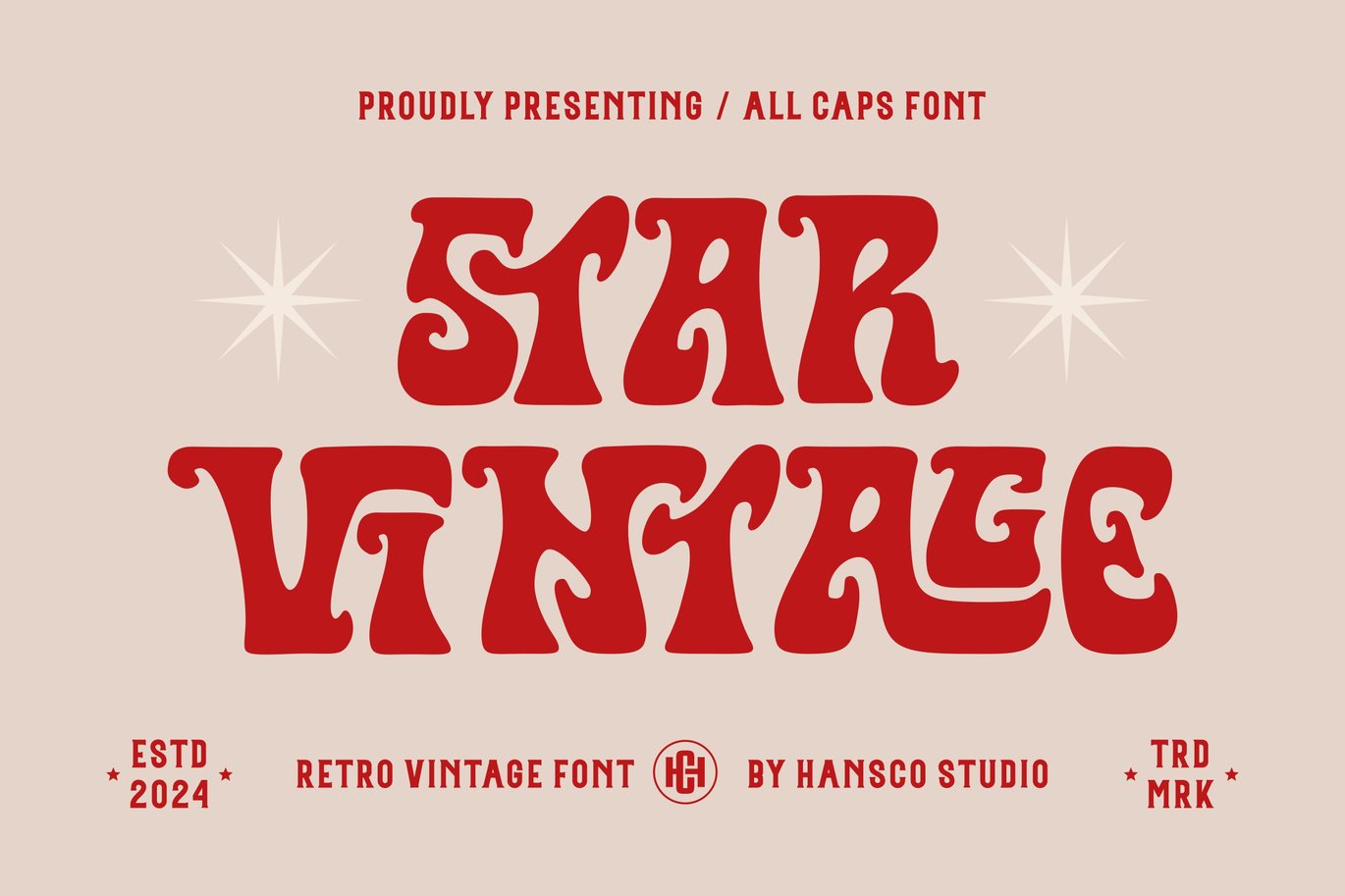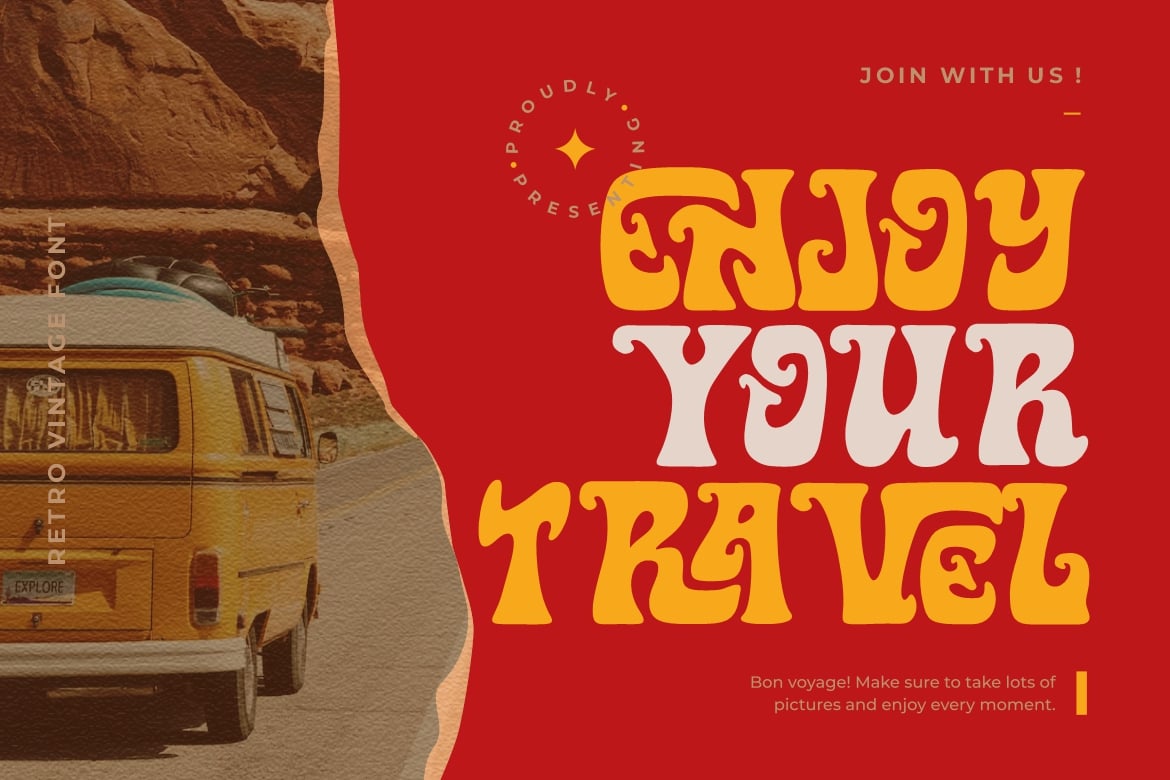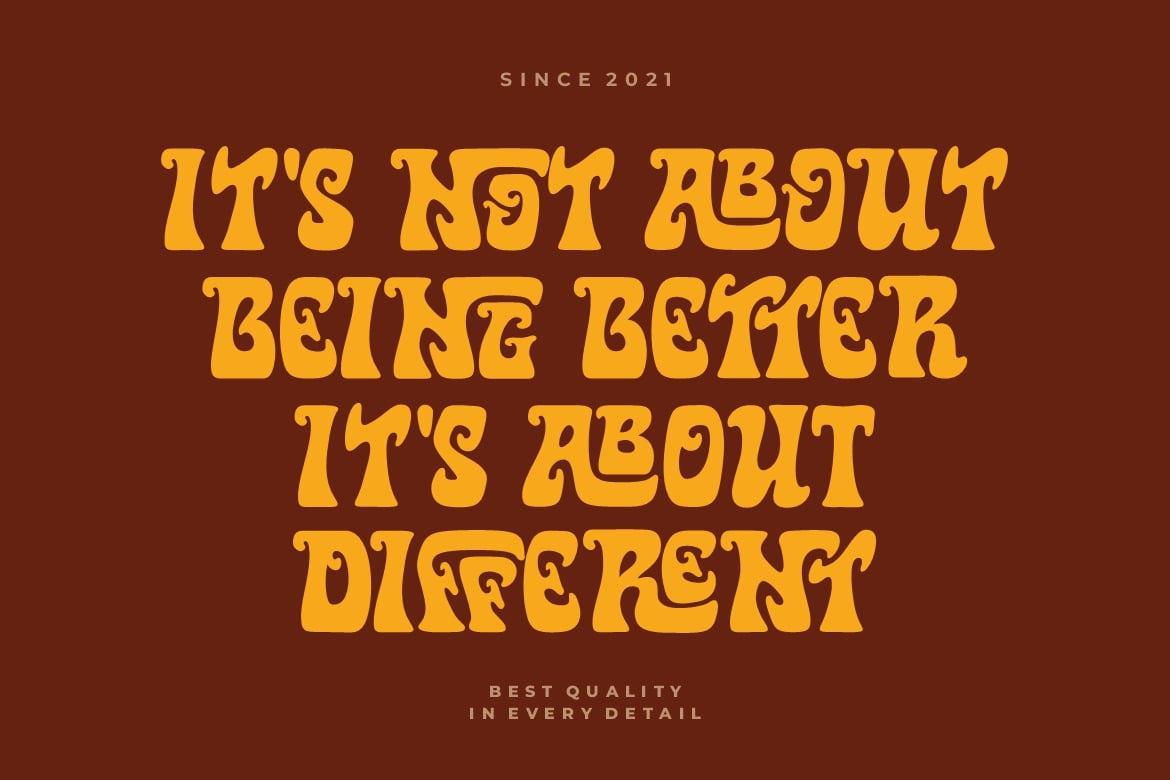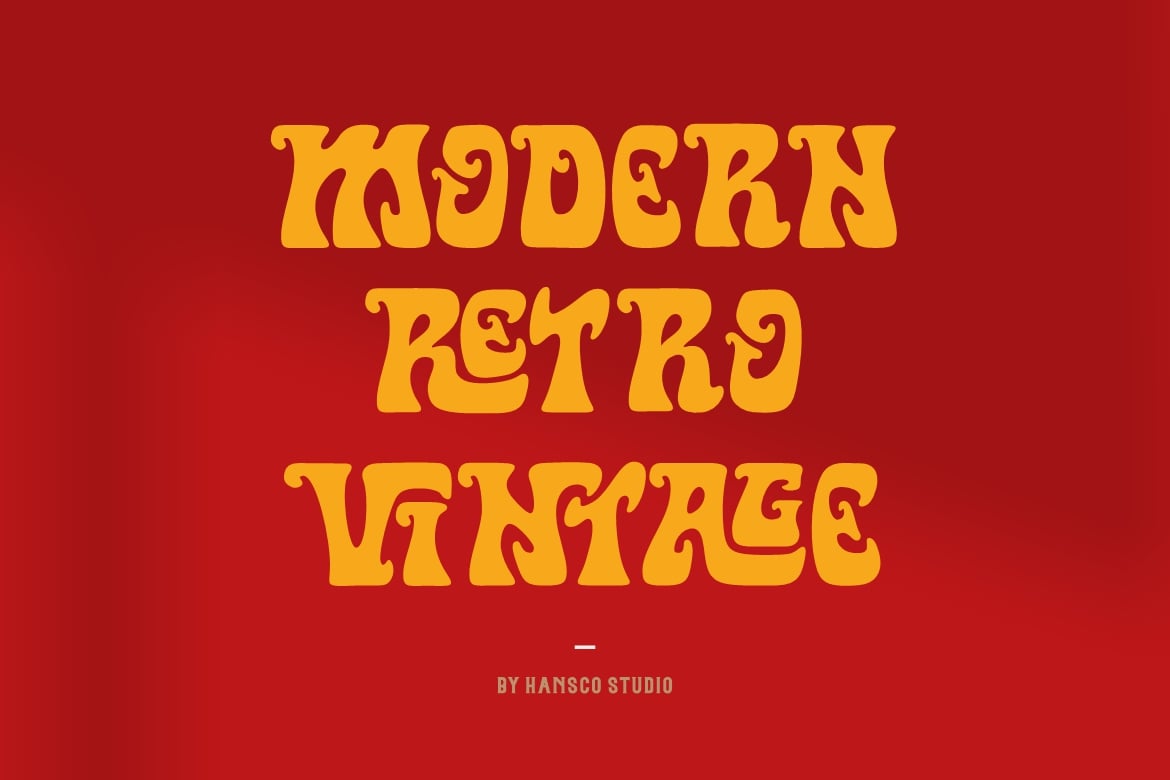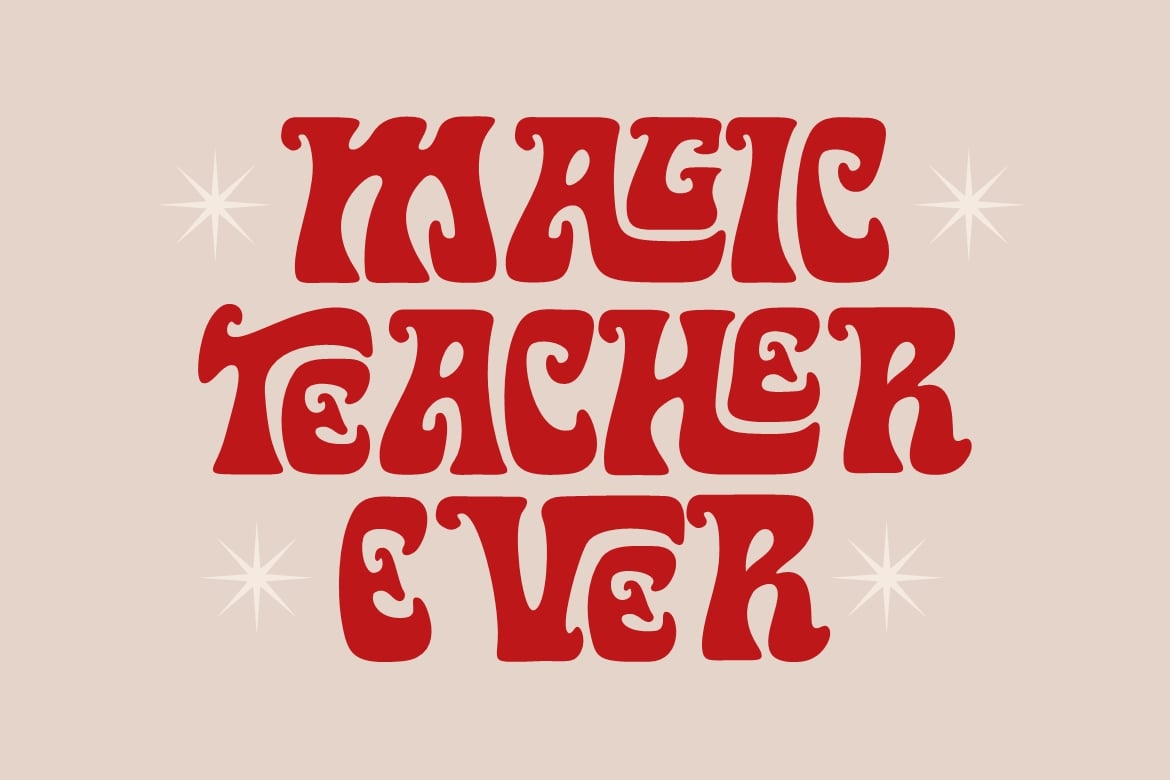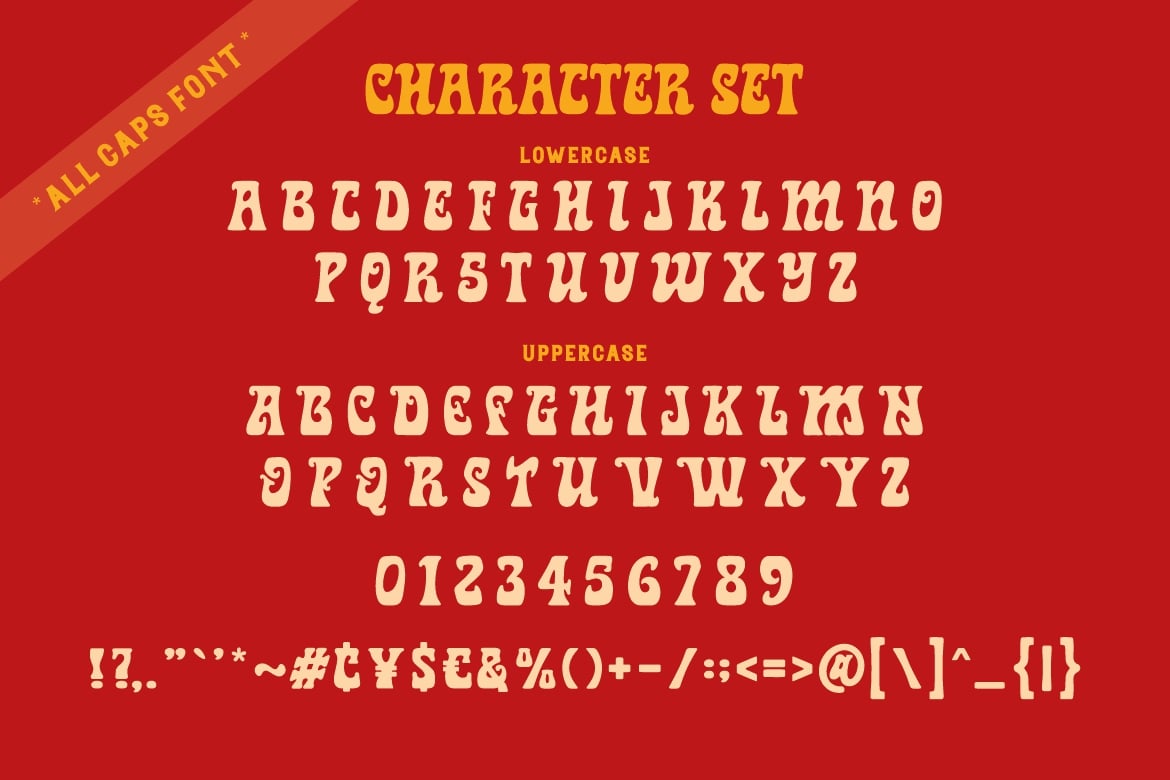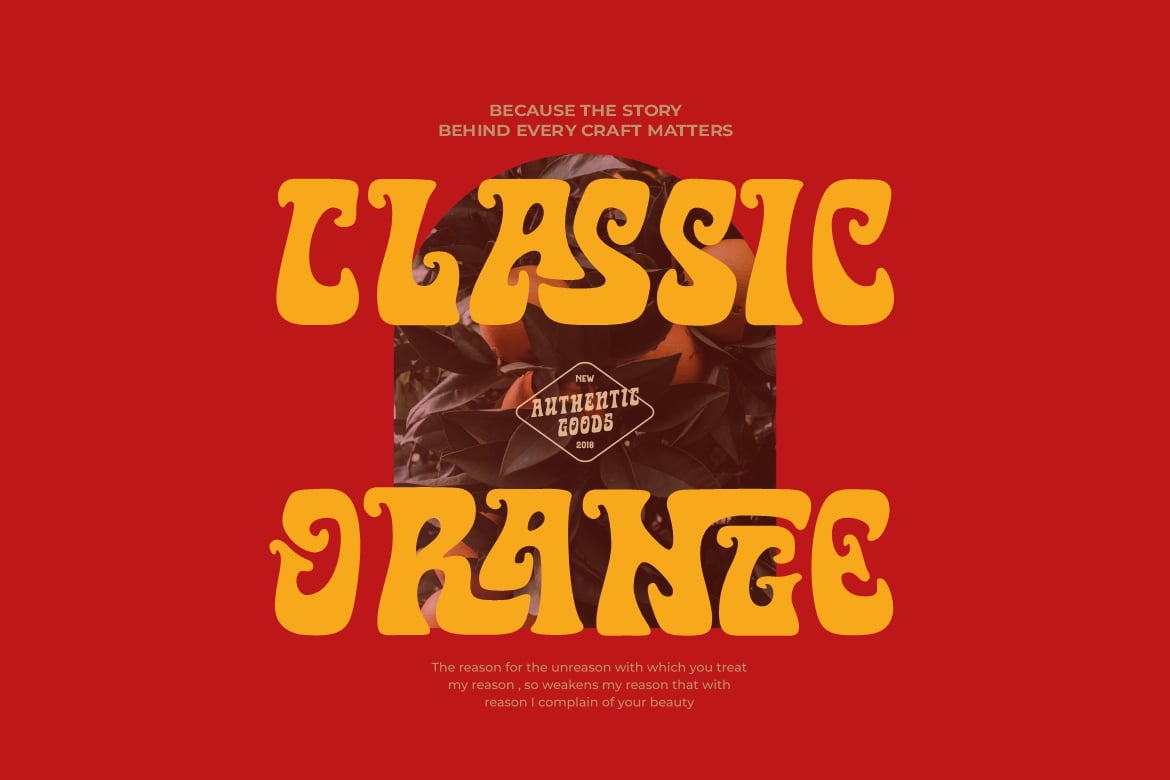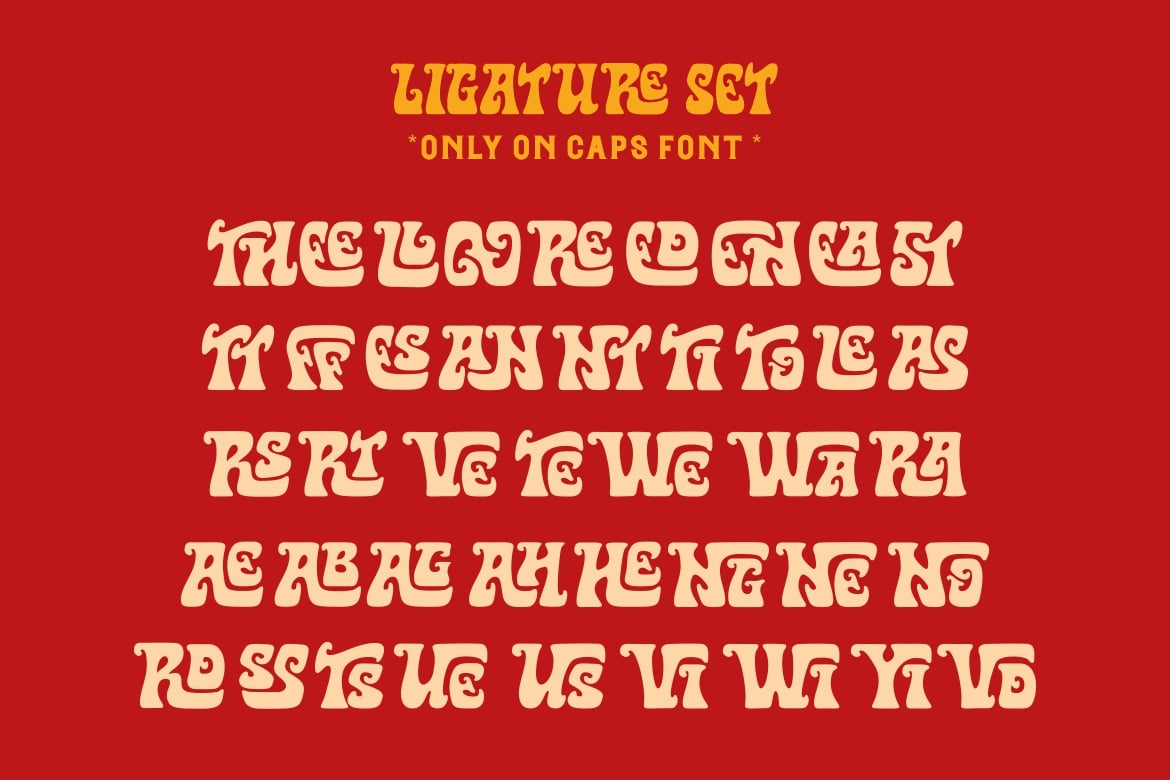
Star Vintage Font
Star Vintage is a retro serif display font with a slightly bold appearance. This font carries the concept of psychedelic style by adding a modern style to it. You will also get ligature characters on some characters. This font comes in all uppercase ( no lowercase ), with punctuation, symbols, numerals, ligature and support multilingual. Use this Star Vintage font to add that special modern retro touch to any design idea you can think of!
- All Uppercase ( No Lowercase )